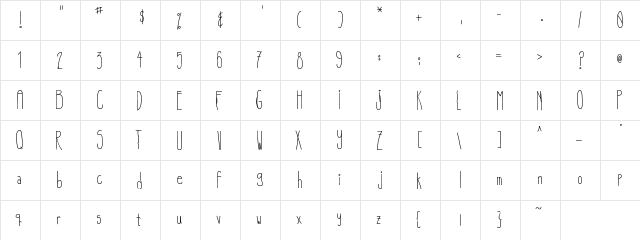
OlivesFont Medium Font Preview
OlivesFont Medium
Design Context for OlivesFont Typeface
OlivesFont is a composed and adaptable typeface that performs quietly and consistently across a wide range of design contexts.